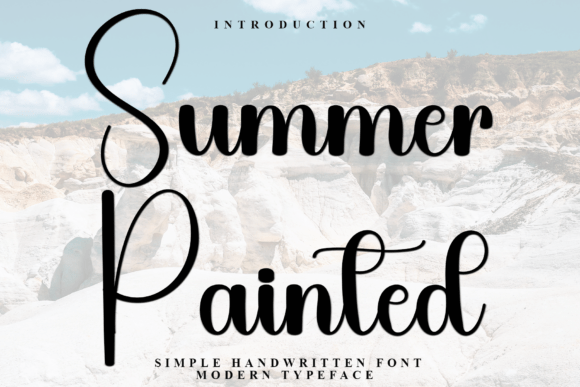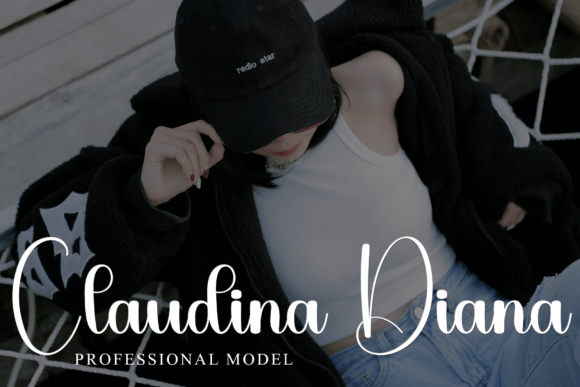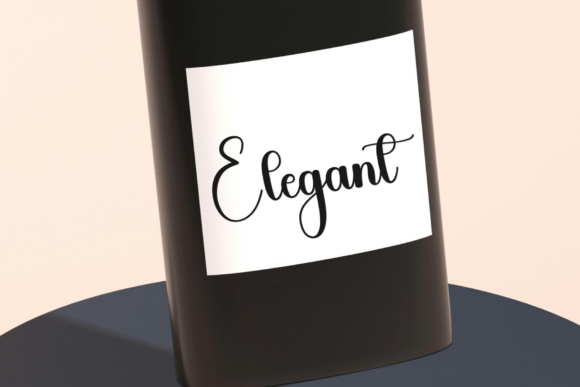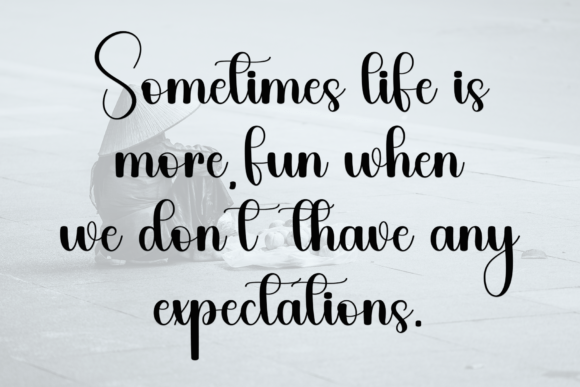
Summer Painted Font: A Cute Handwritten Font for Social Media Design
About the Summer Painted Font
Unleash your creativity with Summer Painted Font, a versatile font perfect for a wide range of applications. Summer Painted is a casual and creative font that exudes warmth and friendliness. Its round, playful strokes create a relaxed and approachable feel, perfect for personal projects, invitations, and social media graphics. The font’s charming, hand-drawn aesthetic adds a fun and unique touch to any design.